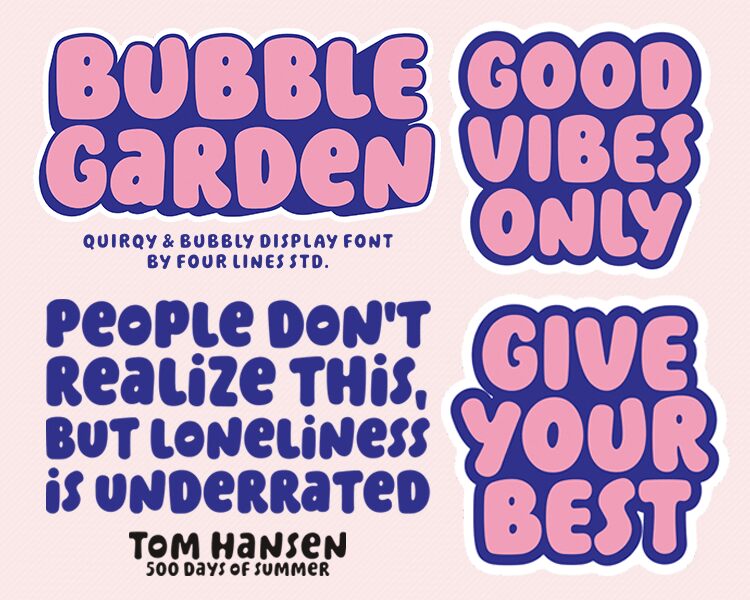
Bubble Garden Bold
Bubble Garden Bold font by Four Lines is a display typeface with an inflated appearance inspired by 1970s fonts. Nothing about this free font is formal as it brings a playful mood, cheerful presence, and thus friendliness to any design that uses it.